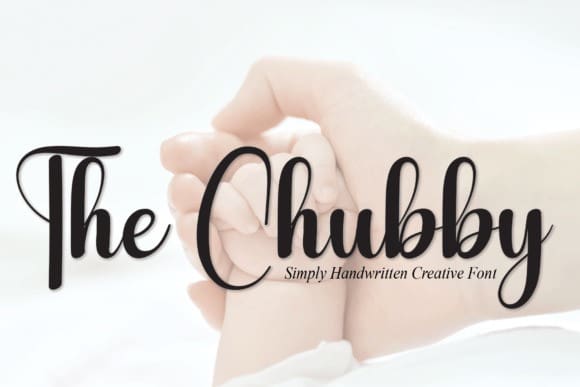
The Chubby Font
The Chubby Font is a romantic and sweet calligraphy typeface with characters that dance along the baseline. It will add a luxury spark to any design project that you wish to create!